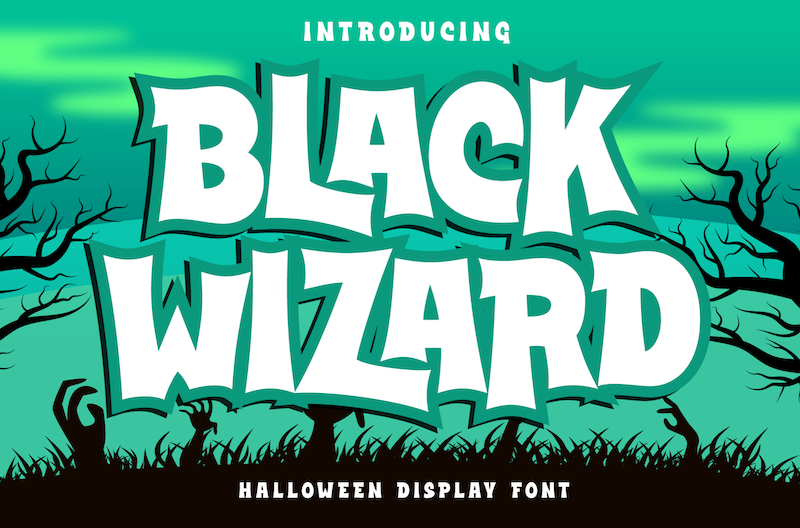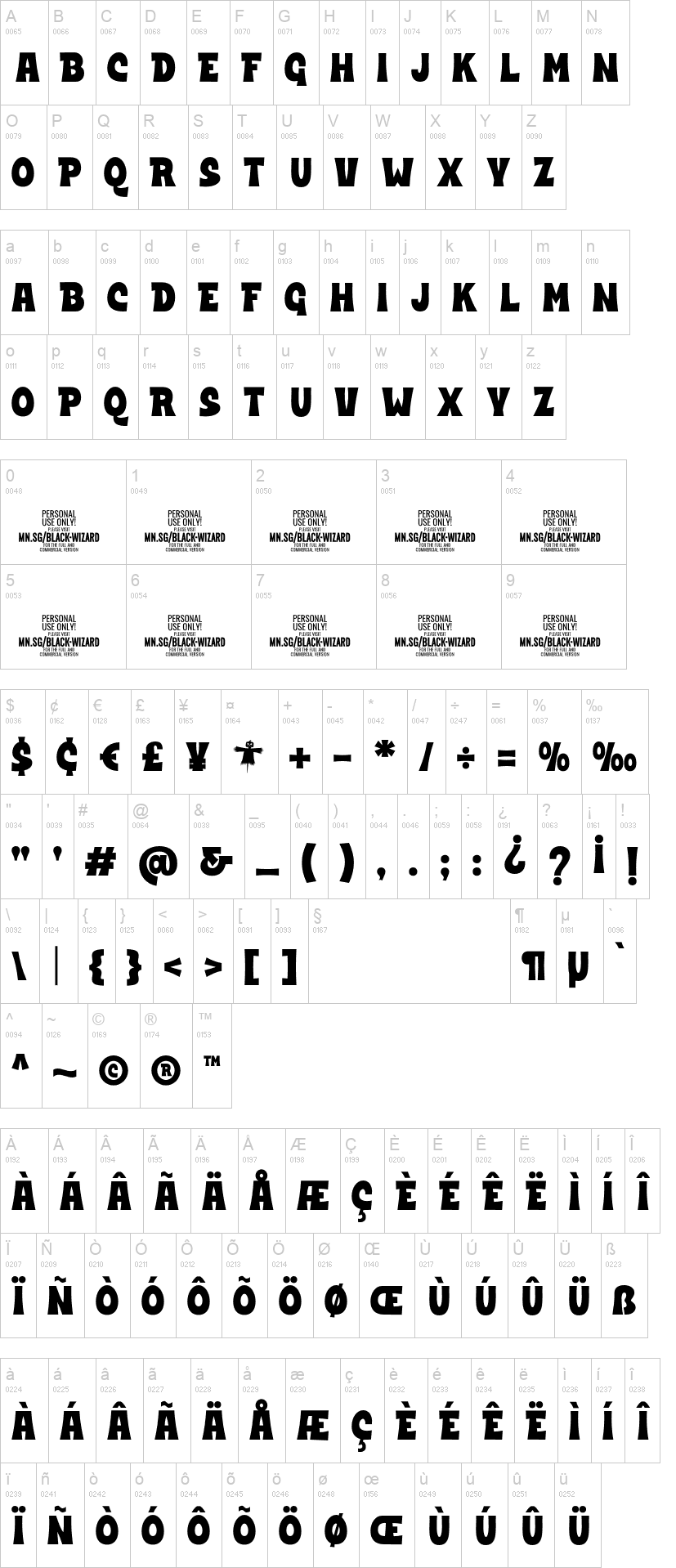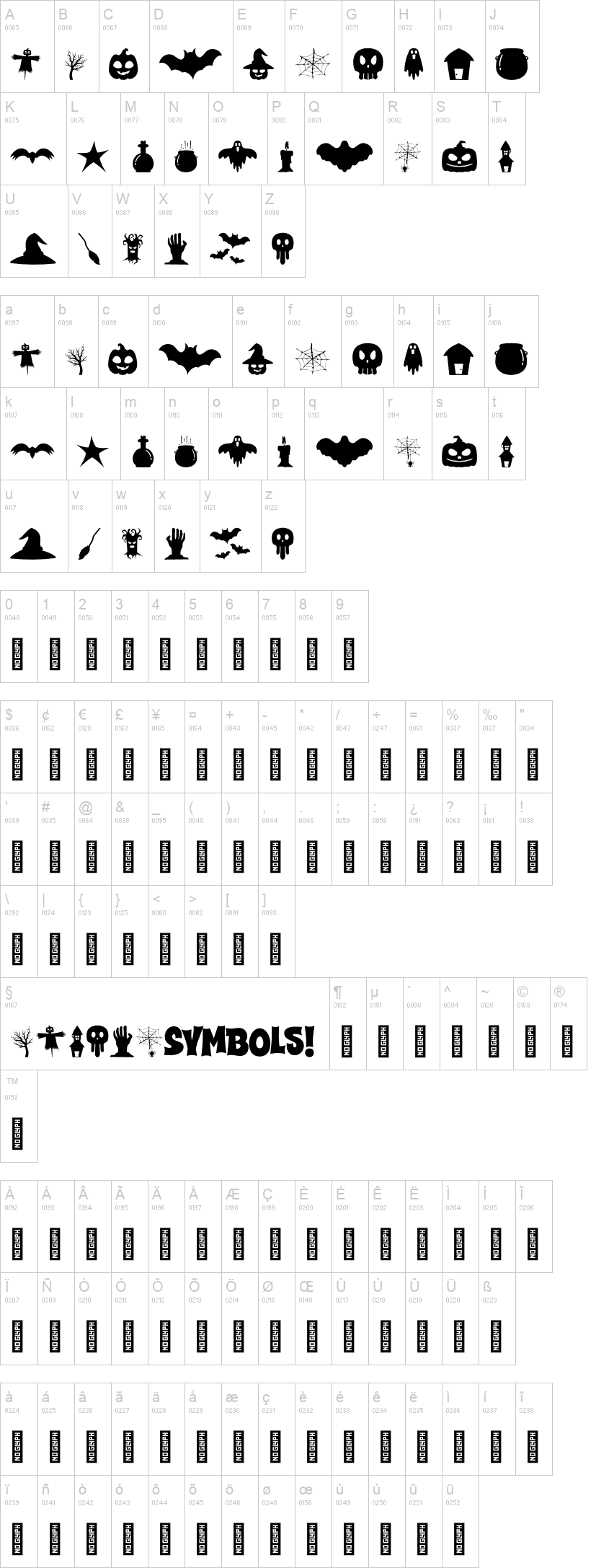
Black Wizard is a bold funky sans-serif font with a playful character
This font is ideal for Halloween-themed designs, as its wonky appearance can add an extra element of spookiness to your work.
Use the character ¤ anywhere in a word to make a Halloween symbol.
Example: Scare¤Crow.